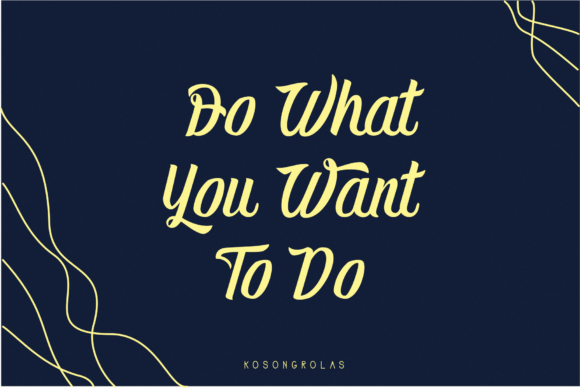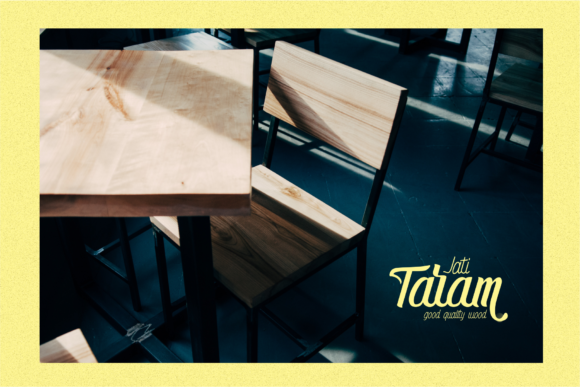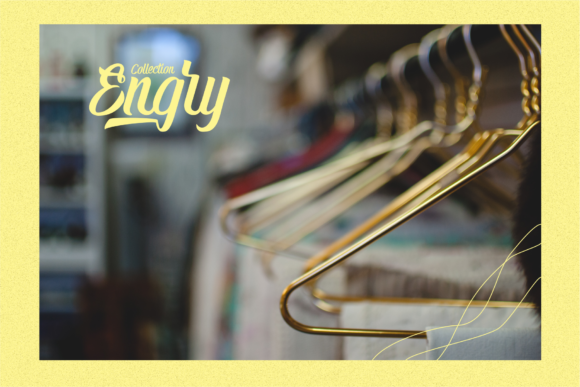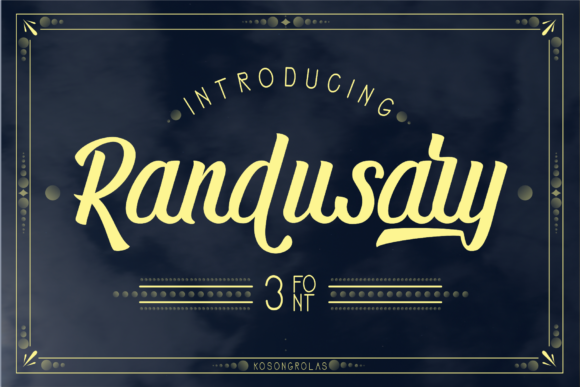
Introduction to Randusary Font
The Randusary is a modern family of three.
It comes in a script, sans and monoline version Each version has its own uniqueness that will give you the opportunity to keep creating unique designs with the same fonts.
Why Choose Randusary Font?